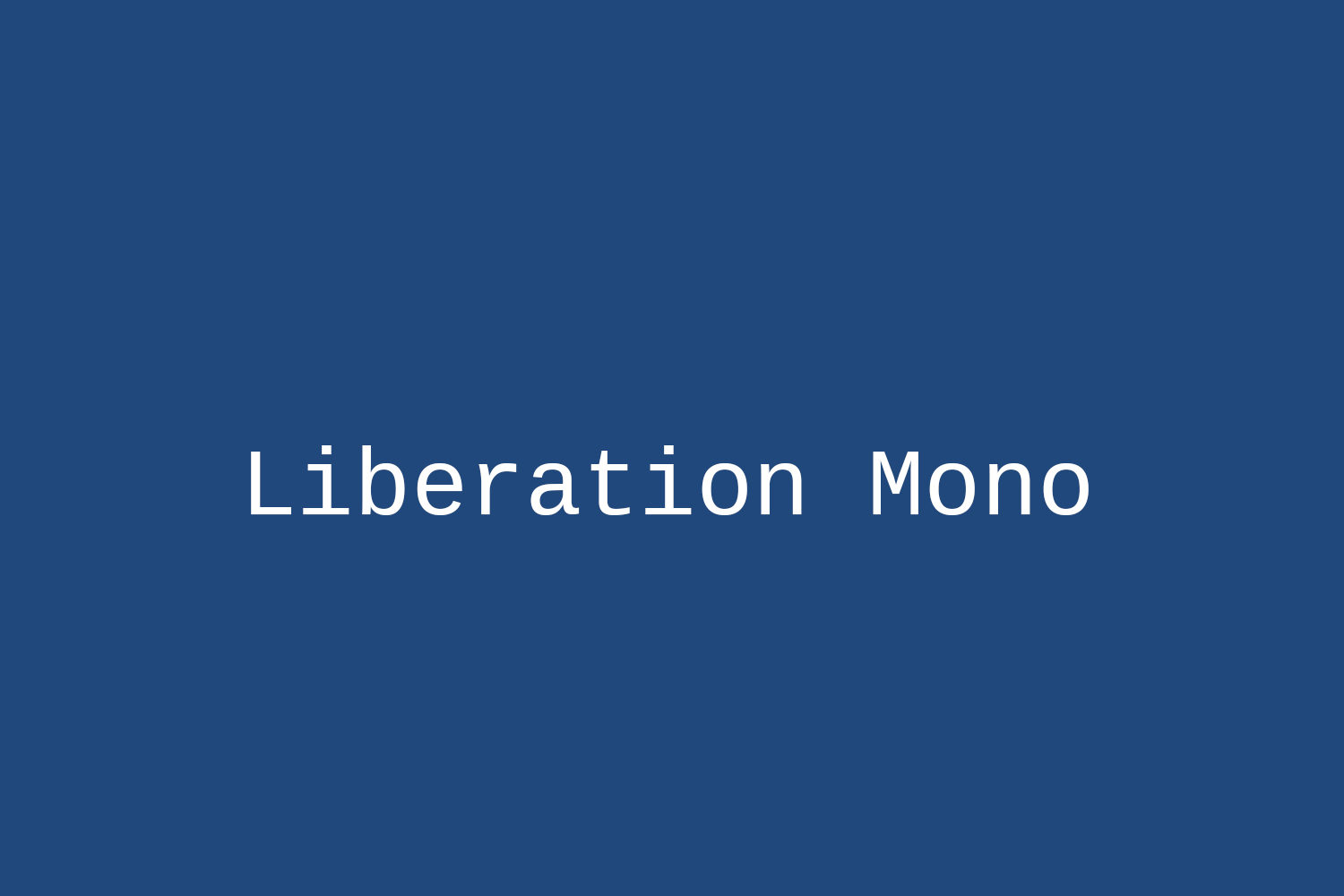
Liberation Mono Free Font Family is a font family which aims at metric compatibility with Arial, Times New Roman, and Courier New. It is sponsored by Red Hat.
Designed by Red Hat